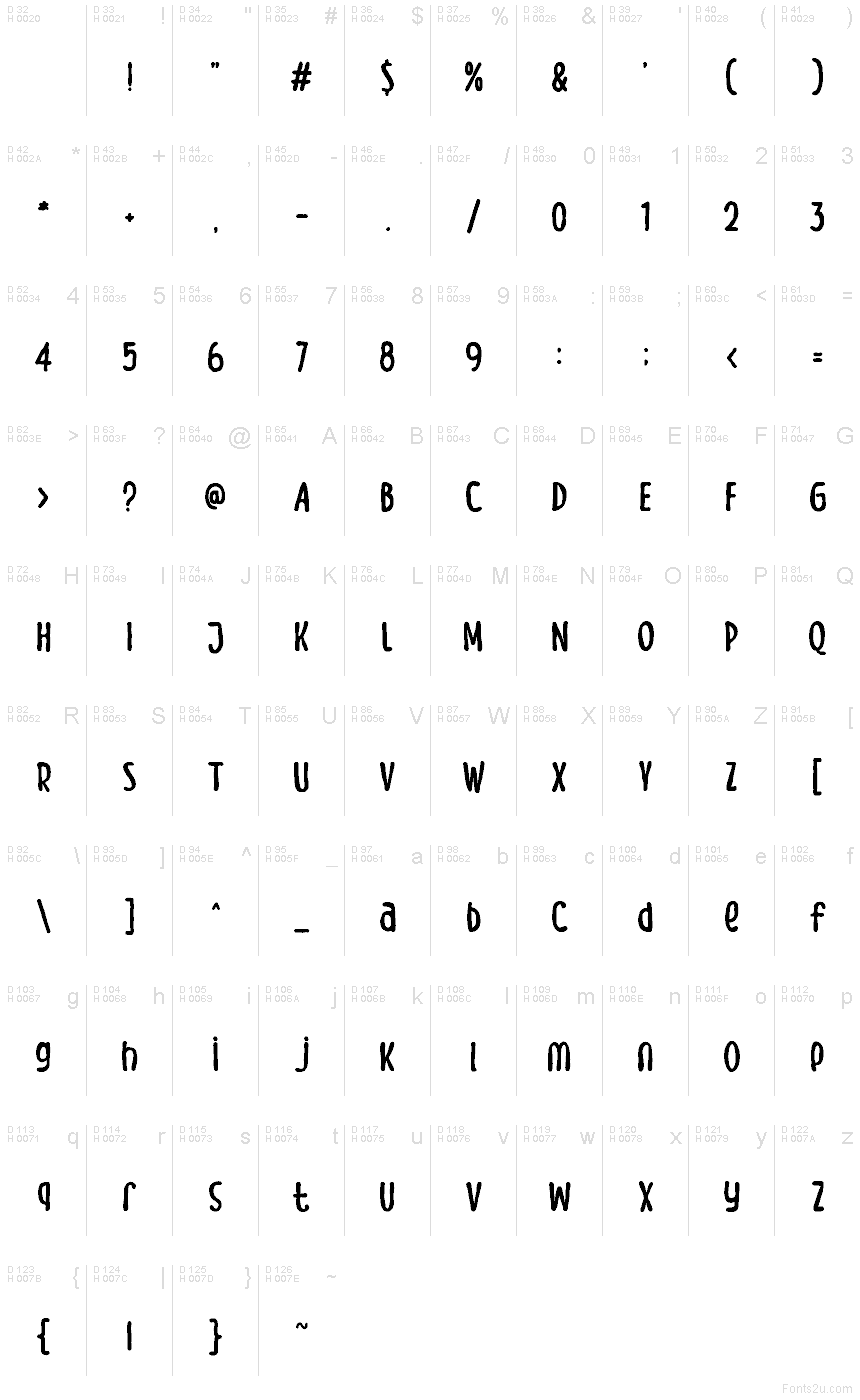
Meow Zilla
Meow Zilla font by PutraCetol Studio is a free bold decorative display font. It stands out with tall, squishy forms and softly rounded edges that feel hand‑inked—like letters pounced onto the page. The rhythm has a cheerful bounce, with slightly wobbly strokes that stay legible while keeping that playful, mischievous vibe.
Using Meow Zilla, your headlines spring to life on kids’ branding, pet-store signage, toy packaging, birthday invites, comic covers, and Halloween promos. This free font’s chunky contrast and roomy spacing hold up at large sizes and on busy backgrounds. For balance, pair it with a simple geometric sans for body copy, and let Meow Zilla handle the big, smile-inducing moments.